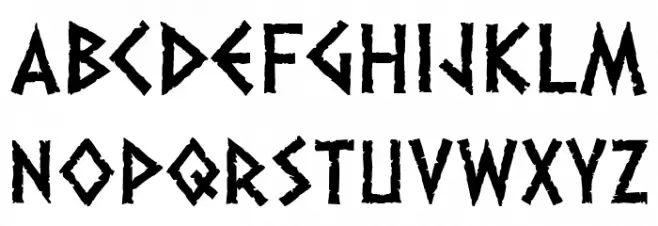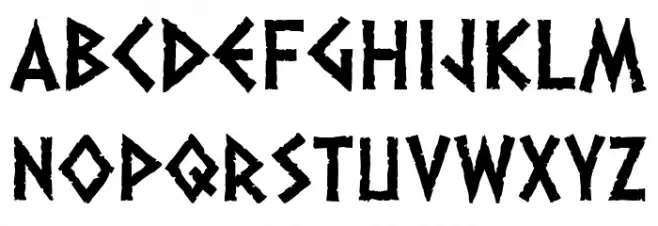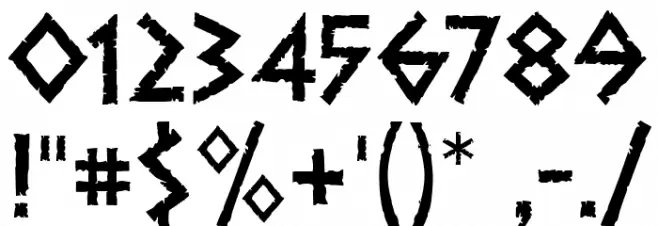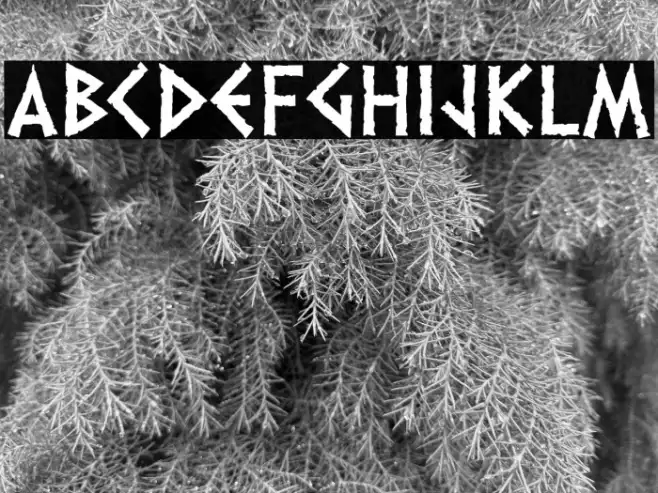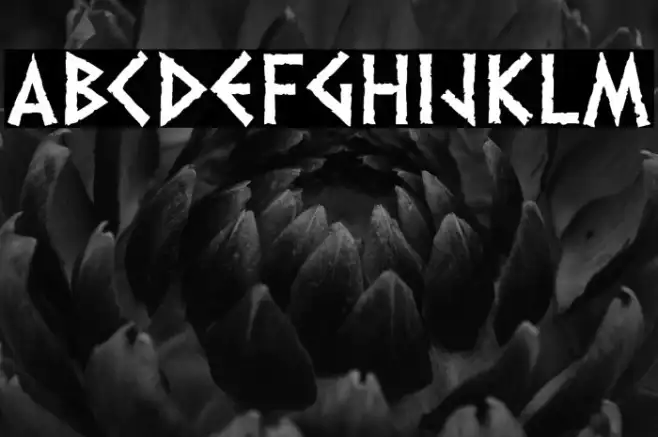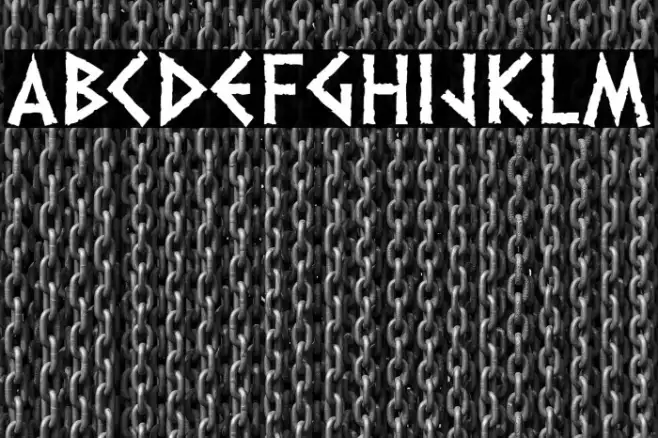
Dalek Font
Dalek by Keith Bates " © 2006, 2015 www.k-type.com " Dalek is a small caps typeface based on the lettering used in the Dalek Book of 1964 and in the Daleks strip in TV21 comic. The fonts have overtones of Phoenician, Greek and Runic alphabets.